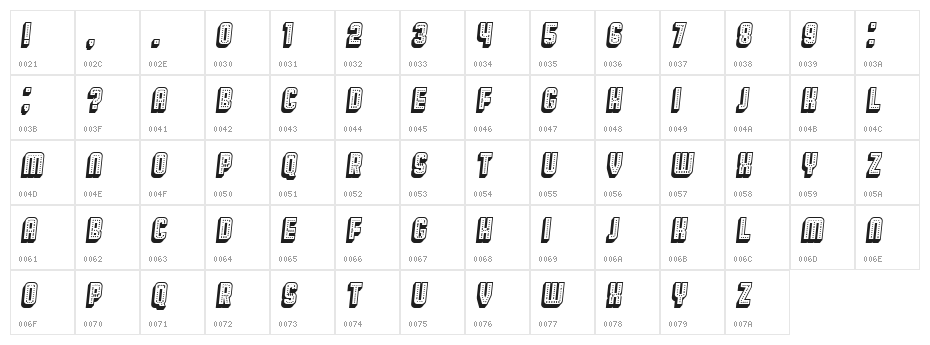
Broadway 3D Italic Font
Broadway 3D Italic Description
This font features a bold, three-dimensional design with a distinct italic slant. Each character is outlined with a dotted pattern, giving it a unique and decorative appearance. The letters are uppercase, with a strong shadow effect that enhances the 3D illusion. The numbers and special characters follow the same stylistic approach, maintaining consistency throughout the set. The font's playful and eye-catching design makes it suitable for creative and attention-grabbing projects.
| Proposed Projects | Ideal for posters, signage, and any design requiring a bold, decorative touch. |